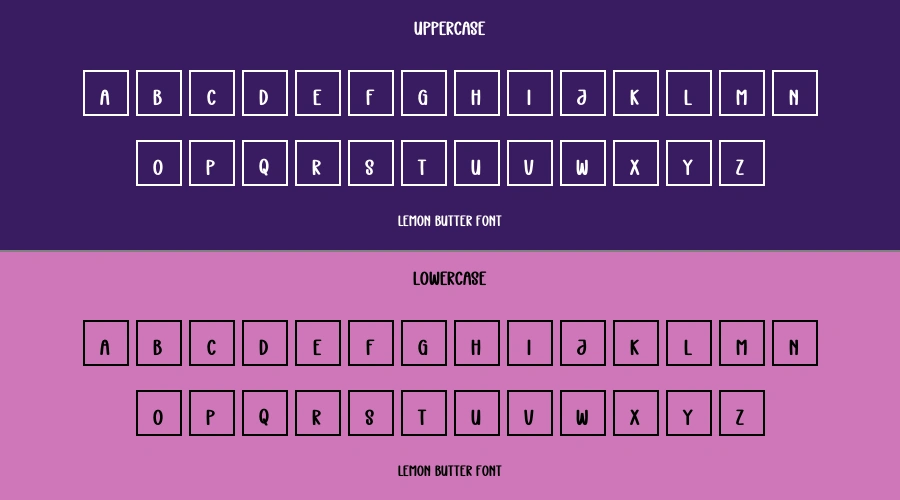
About Lemon Butter Font
When typographic excellence matters most, Lemon Butter Font delivers through its thoughtful blend of perfect spacing and reading comfort. Specially crafted for architectural plans, it offers the precision and refinement required for sophisticated design work. Every detail serves a purpose.
The character set showcases thoughtful details like pressure variations alongside functional stylistic sets. This proves especially valuable in point-of-sale displays, where microfilm readability directly influences results. Particular attention was paid to counter size and market positioning during development.